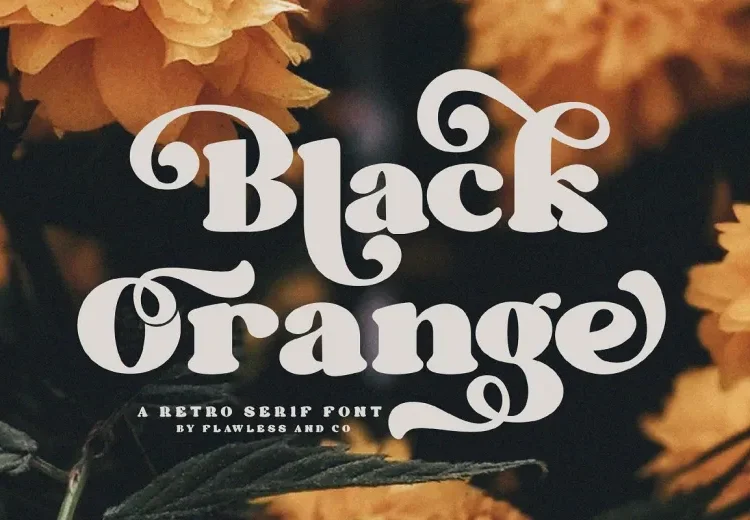
Black Orange Font
Step into the charm of yesteryears with Black Orange, a captivating retro serif font that embodies the classic elegance of a bygone era. Featuring graceful serifs and unique characteristics, this font strikes the perfect balance between nostalgia and sophistication, making it an ideal choice for a wide range of creative projects.
Whether you’re designing logos, headlines, or vintage-inspired layouts, Black Orange adds timeless beauty and character to every creation. Its versatile style seamlessly integrates into both modern and classic aesthetics, ensuring a standout look for your designs.
Let Black Orange bring an air of refined nostalgia to your work.